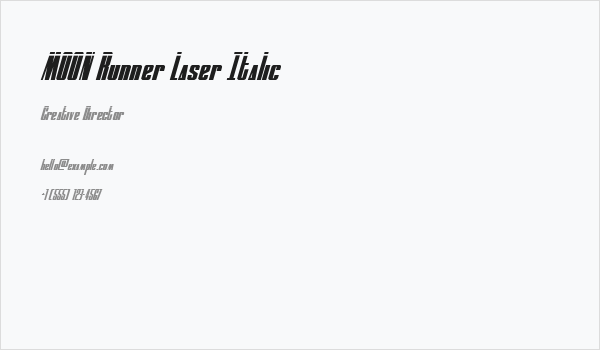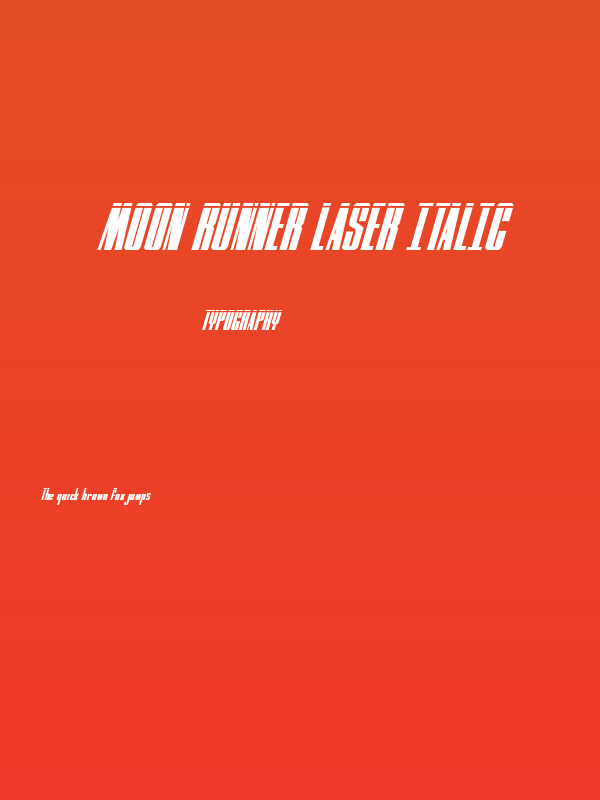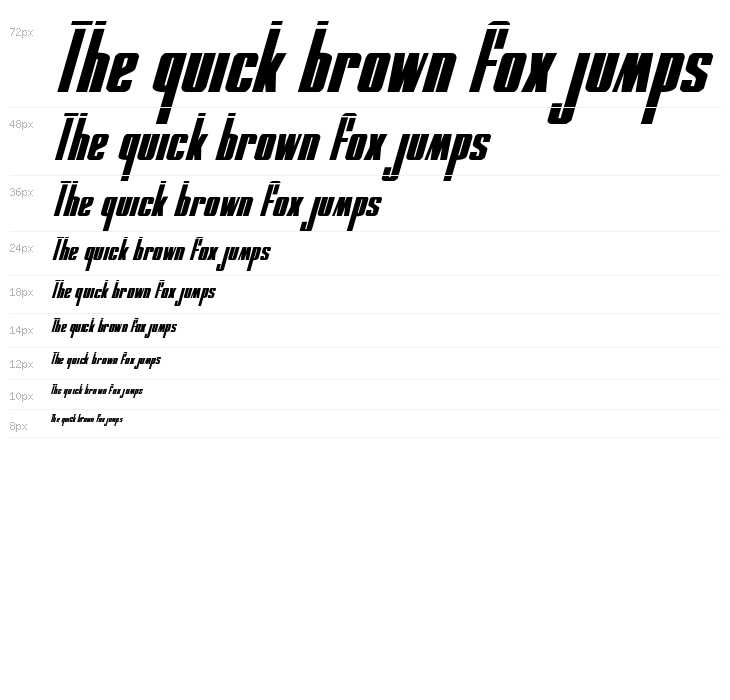
MOON Runner Laser Italic Font
MOON Runner Laser Italic Description
This font features a futuristic and dynamic style, characterized by its sharp, angular lines and italicized slant. The uppercase and lowercase letters maintain a consistent width, creating a cohesive and streamlined appearance. The numerals and special characters follow the same design principles, ensuring uniformity across all glyphs. The font's bold weight and high contrast between thick and thin strokes enhance its readability and visual impact. Its condensed width and tight character spacing contribute to its sleek and modern aesthetic, making it ideal for projects that require a sense of speed and innovation.
| Proposed Projects | Ideal for sci-fi movie posters, video game titles, technology branding, and futuristic event flyers. |